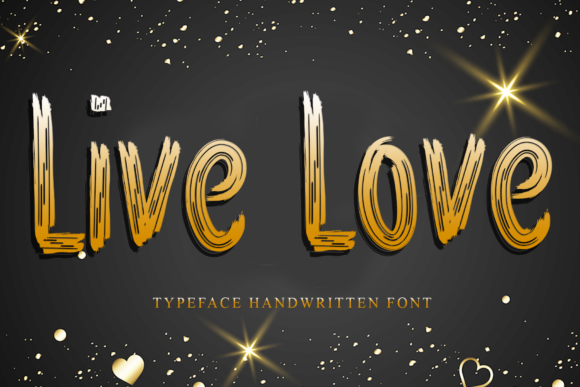
Introducing Live Love Font, a captivating display font family that breathes life into your wedding logos, invitations, and branding. Created by the talented dazzlinggleam, Live Love is more than just a font; it's an embodiment of love, joy, and everlasting bonds.
Step into a world of elegance and sophistication with Live Love. Its sweeping curves and playful strokes dance across your designs, leaving a trail of timeless beauty. Each letter is crafted with precision, exuding a sense of romance and heartfelt emotion.
With Live Love, you'll effortlessly create enchanting wedding logos that capture the essence of your special day. Its versatility extends beyond logos, making it the perfect choice for invitations, save-the-dates, and any other wedding-related design.
Whether you're a seasoned designer or just starting, Live Love is your gateway to stunning, eye-catching designs. Its user-friendly format makes it accessible to all, allowing you to unleash your creativity without limitations.
Live Love isn't just a font; it's an experience that transforms your designs into works of art. It's a font that speaks to the heart, evoking emotions and creating a lasting impression on your audience.
Take your wedding designs to new heights with Live Love Font. Its unique charm and captivating style will leave your clients swooning.